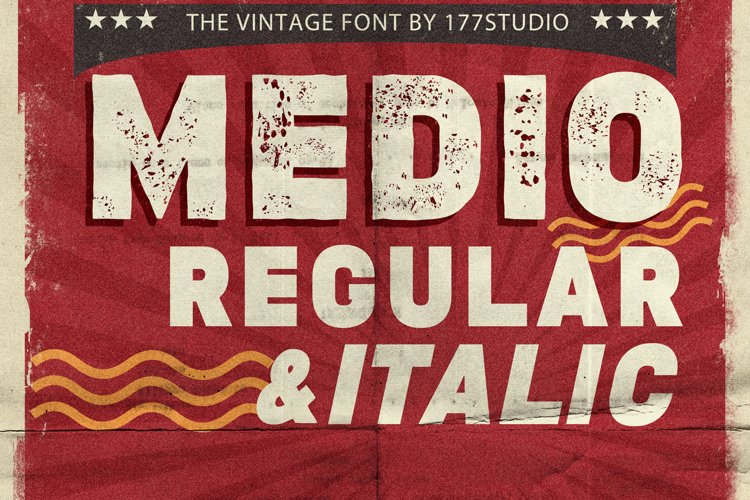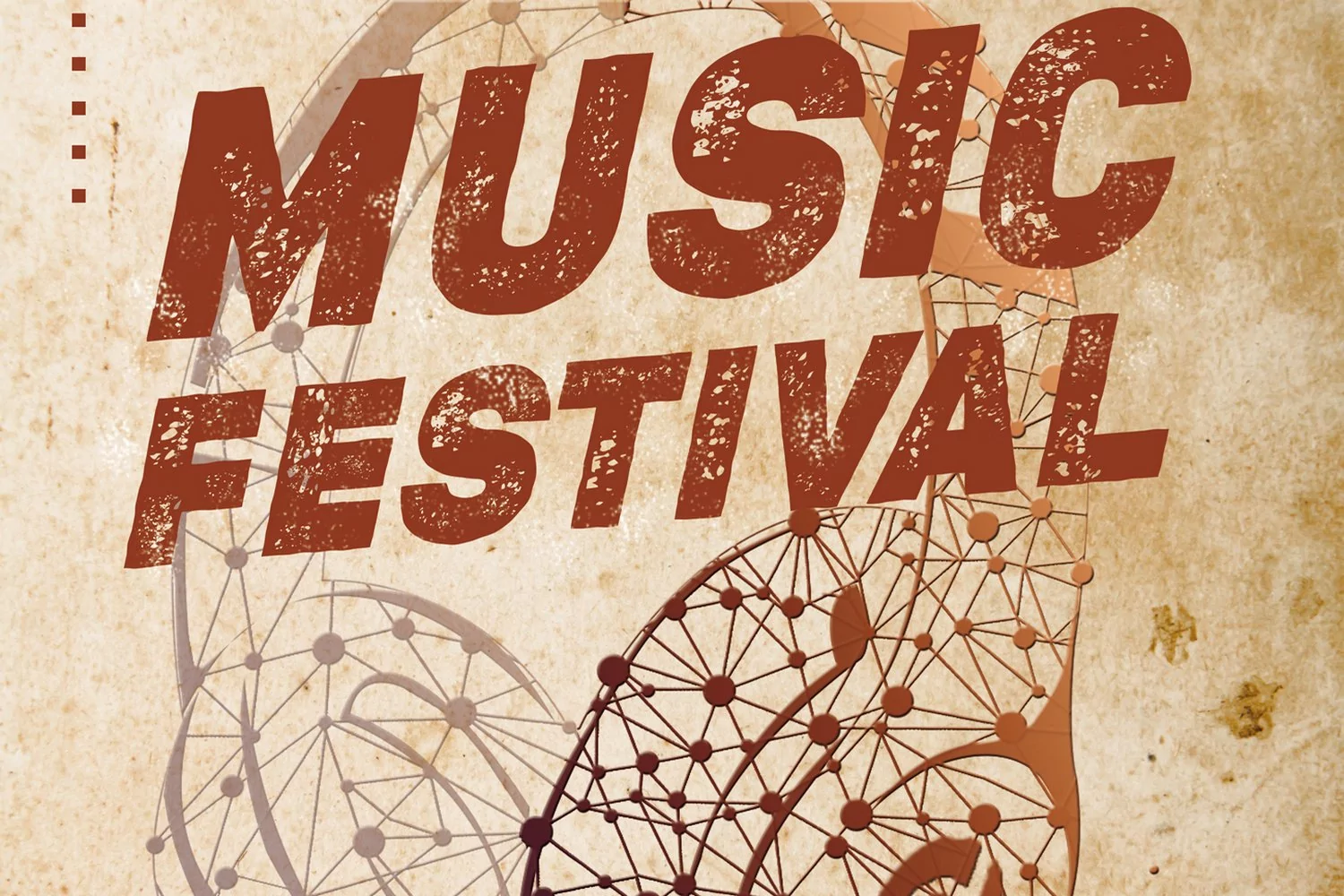
Medio Vintage Font
MEDIO VINTAGE is a versatile sans serif typeface that gives a vintage aesthetic. With it’s unique & distinct characteristics it sets itself apart, while also maintaining a strong timeless appeal overall. Rough & Textured versions allow MEDIO to be a complete set without the need for 3rd party effects to create a printed look, eliminating a step in the process of finalizing your piece.
MEDIO Font is also included full set of:
• Uppercase and Lowercase letters
• Accented characters